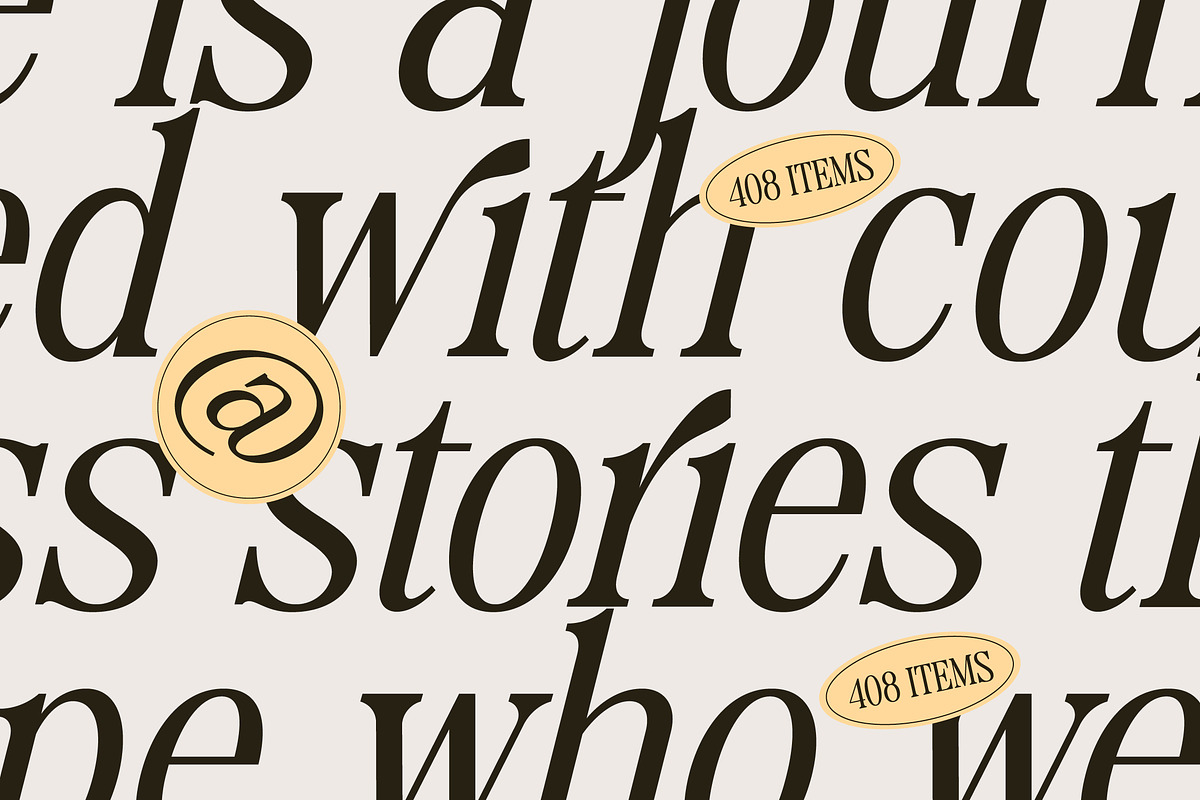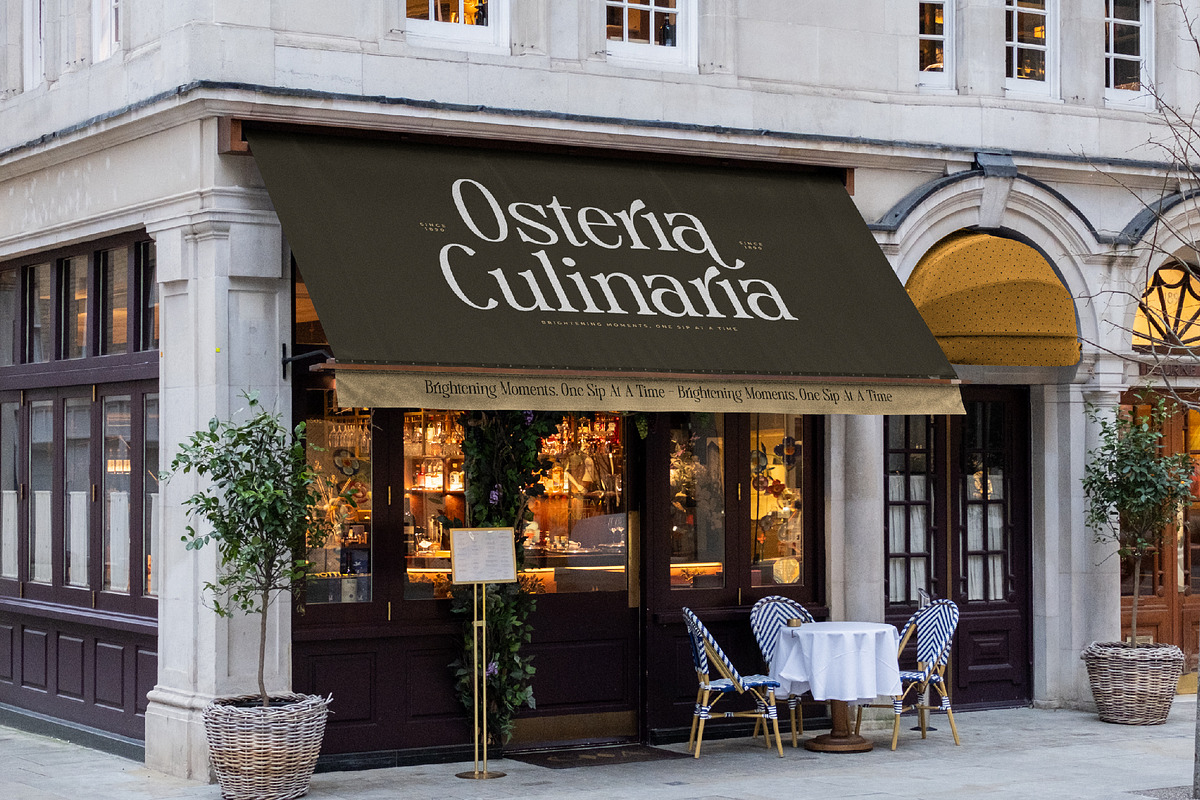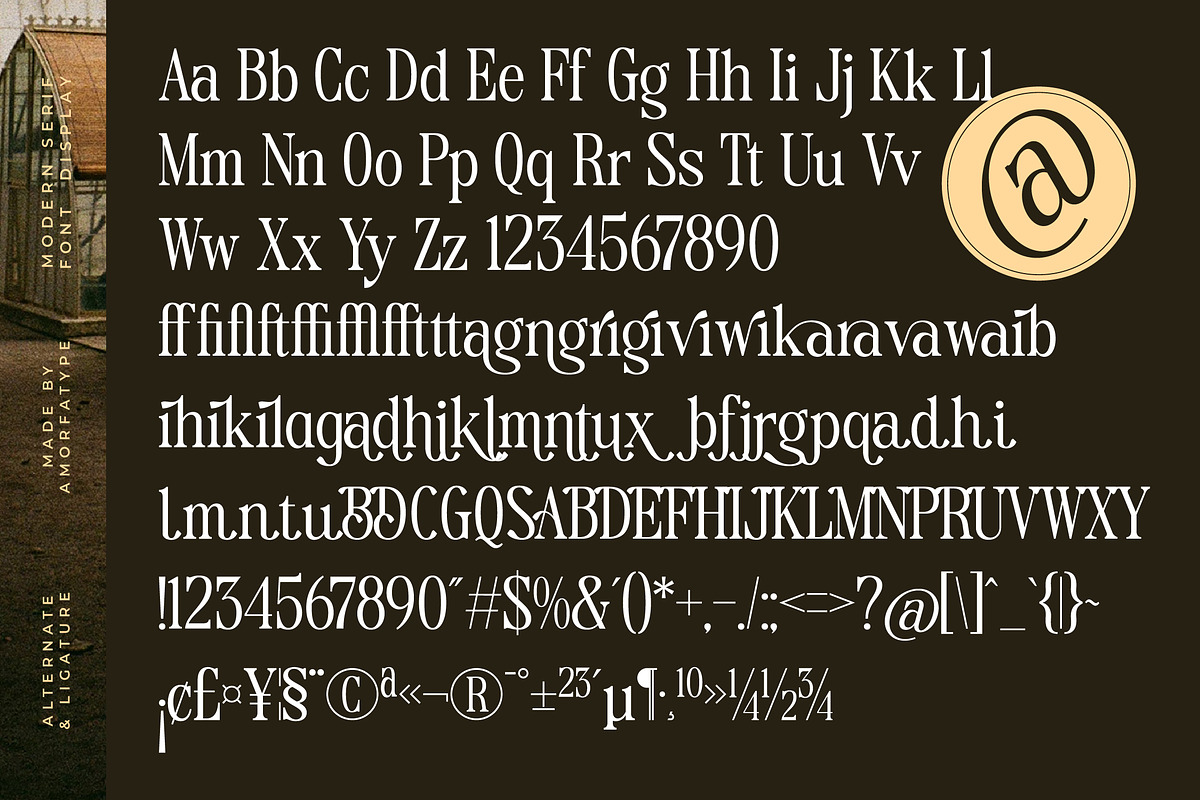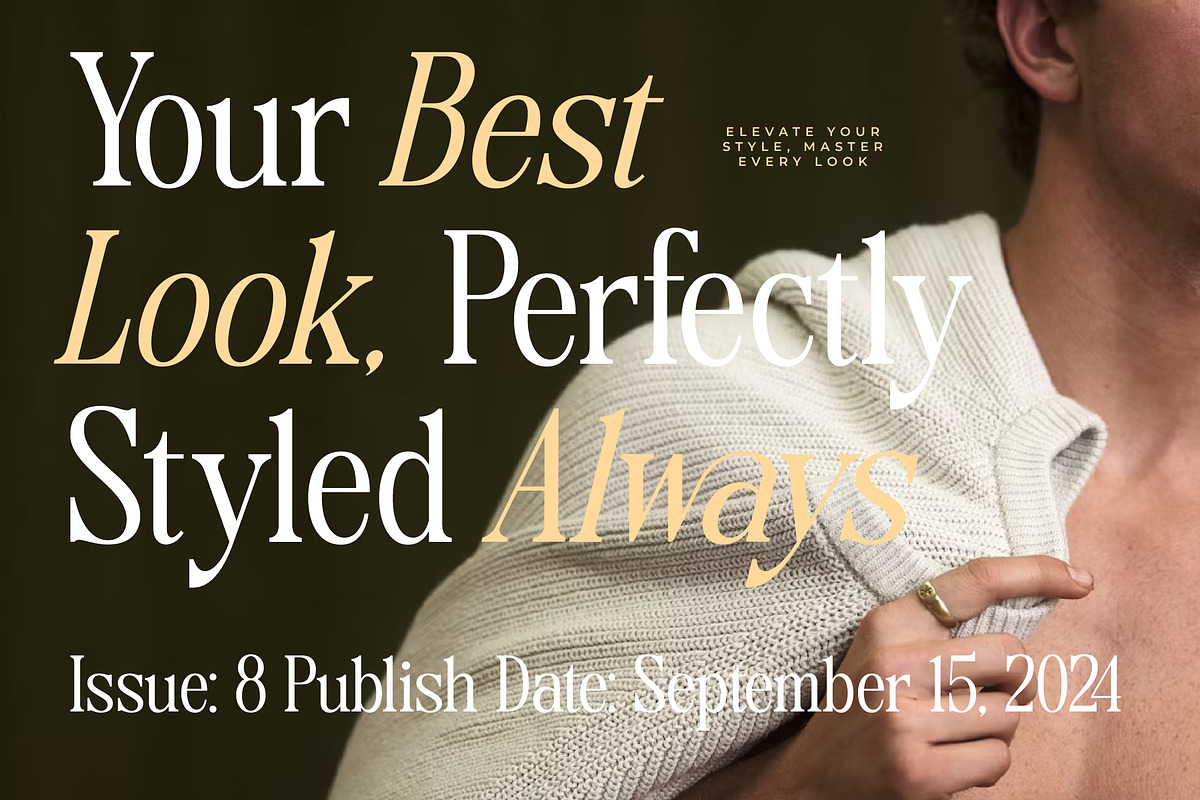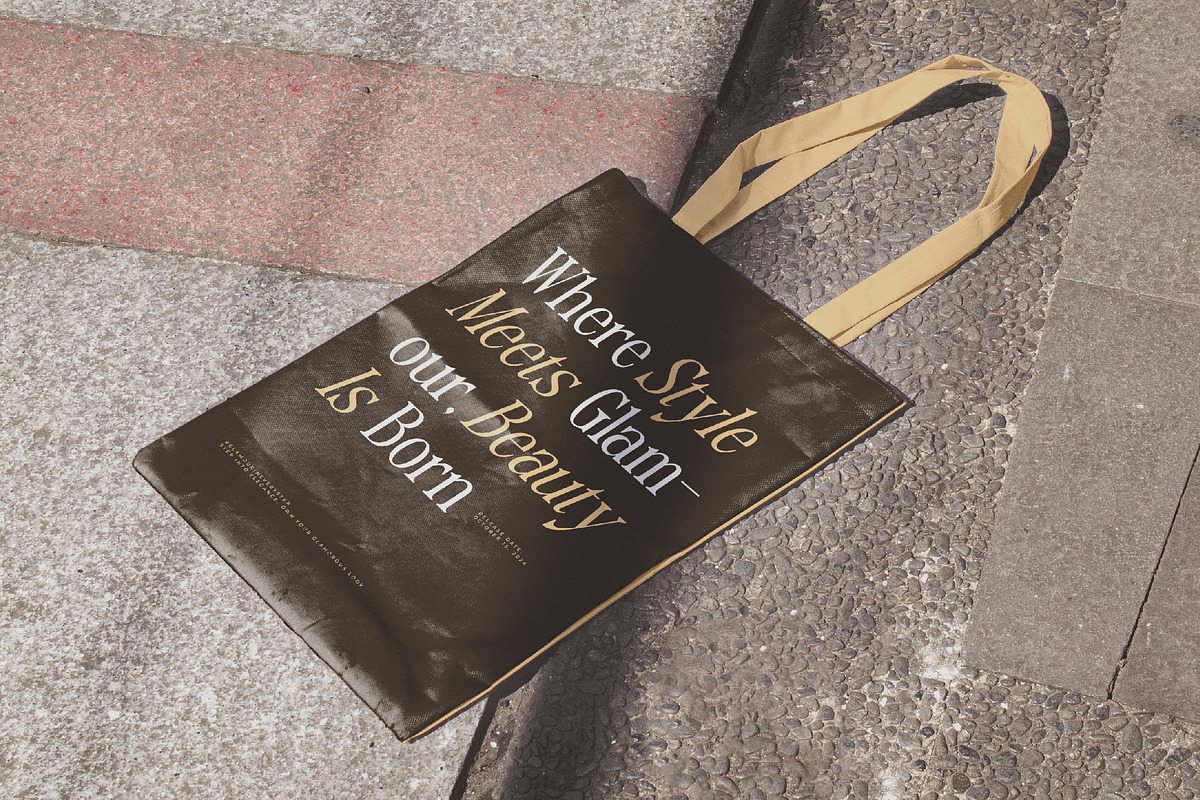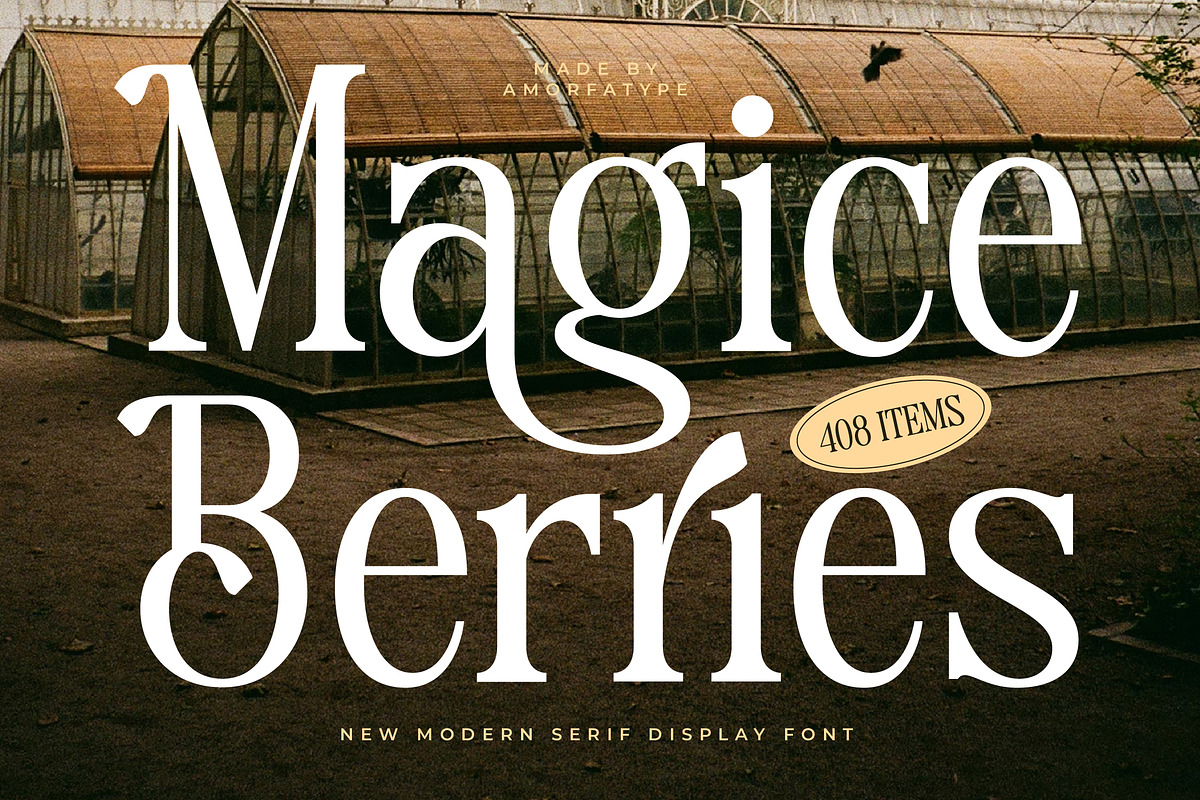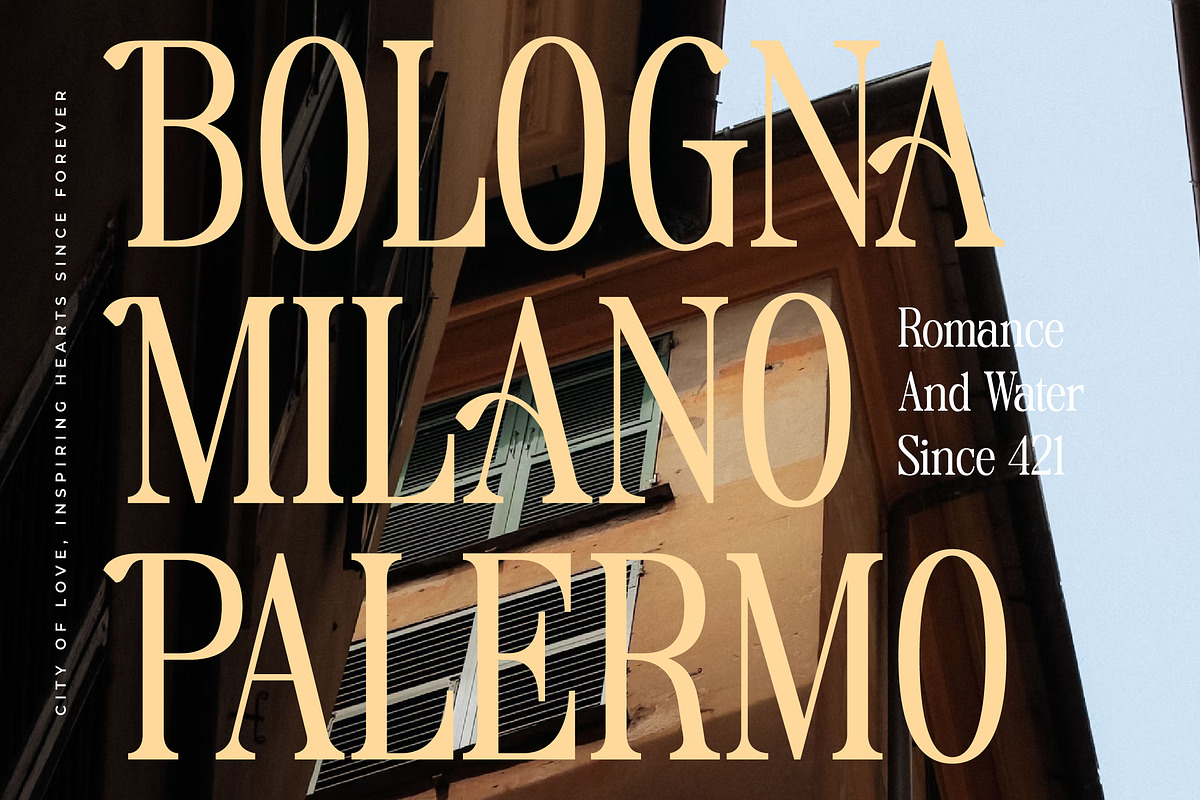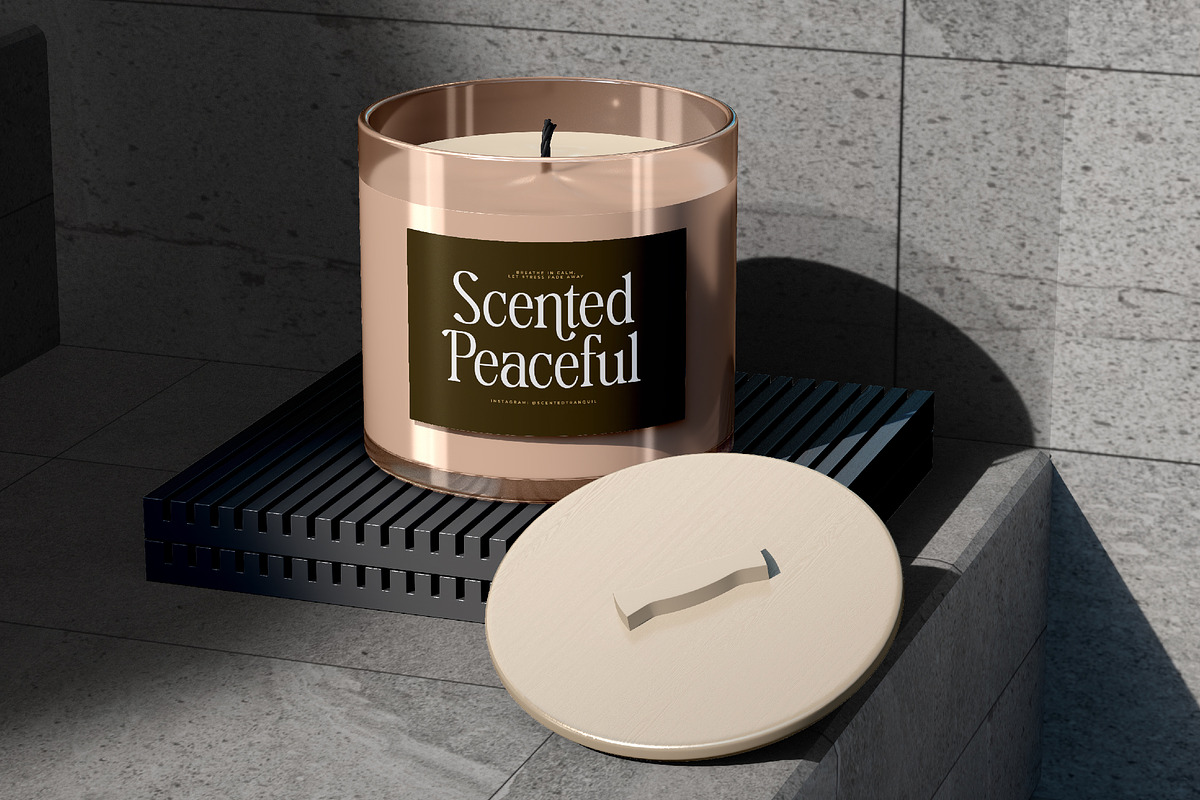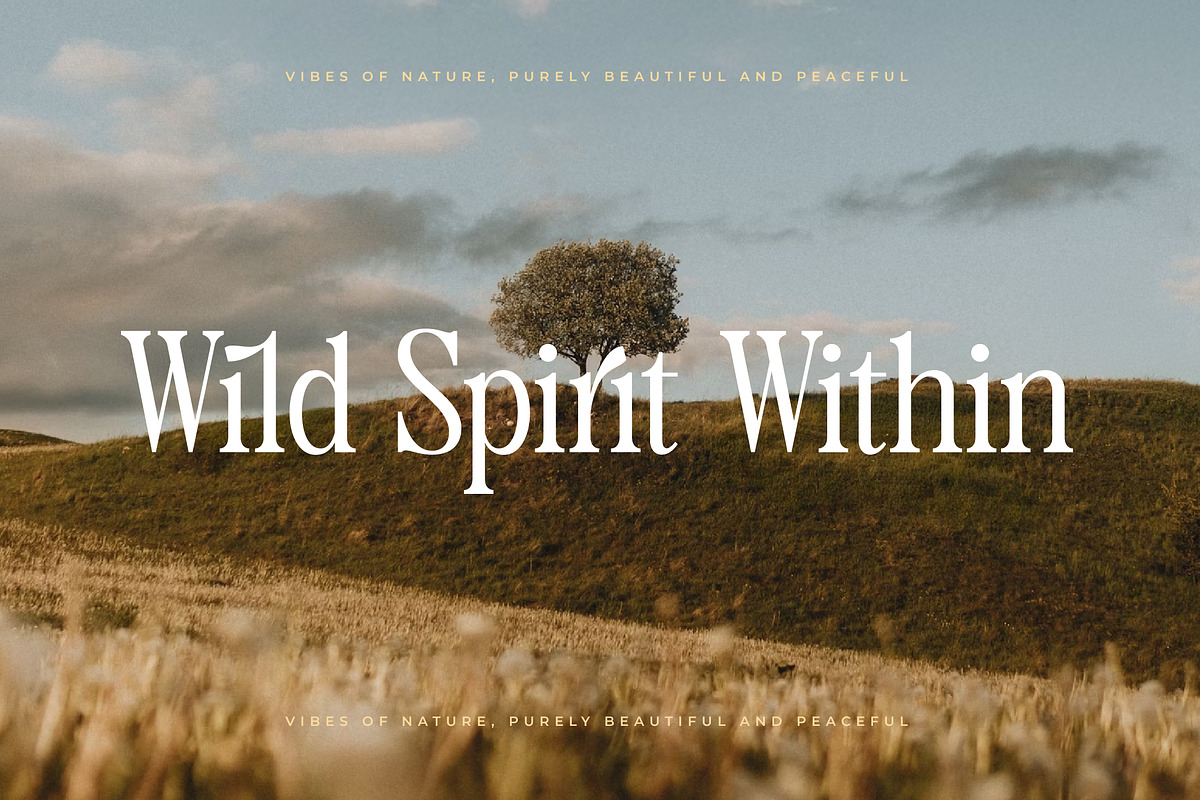
Magice Berries A New Modern Serif
Magice Berries – A New Modern Serif Font by Amorfatype
Magice Berries is a stylish modern serif font that blends whimsical charm with refined elegance. Characterized by soft curves, high contrast strokes, and expressive details, Magice Berries evokes a magical, artistic feel while maintaining a polished and professional structure. It’s the perfect serif for designs that require both personality and sophistication.
Designed for impact and versatility, Magice Berries works beautifully in a wide range of creative applications — from romantic branding projects and editorial spreads to elegant packaging and expressive logos. Every character is thoughtfully crafted to balance readability and flair, making this typeface ideal for modern designers looking to elevate their work with a fresh serif twist.